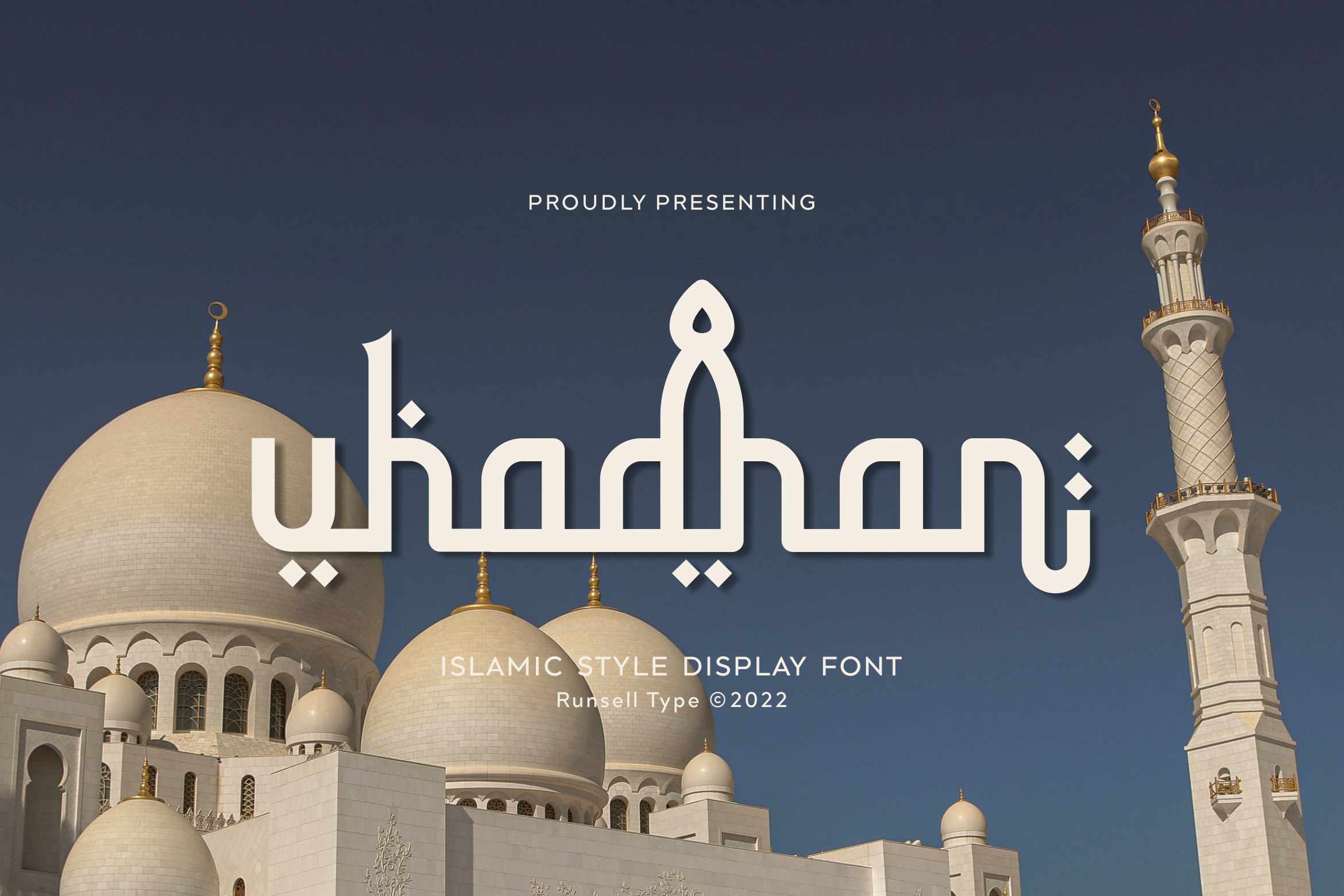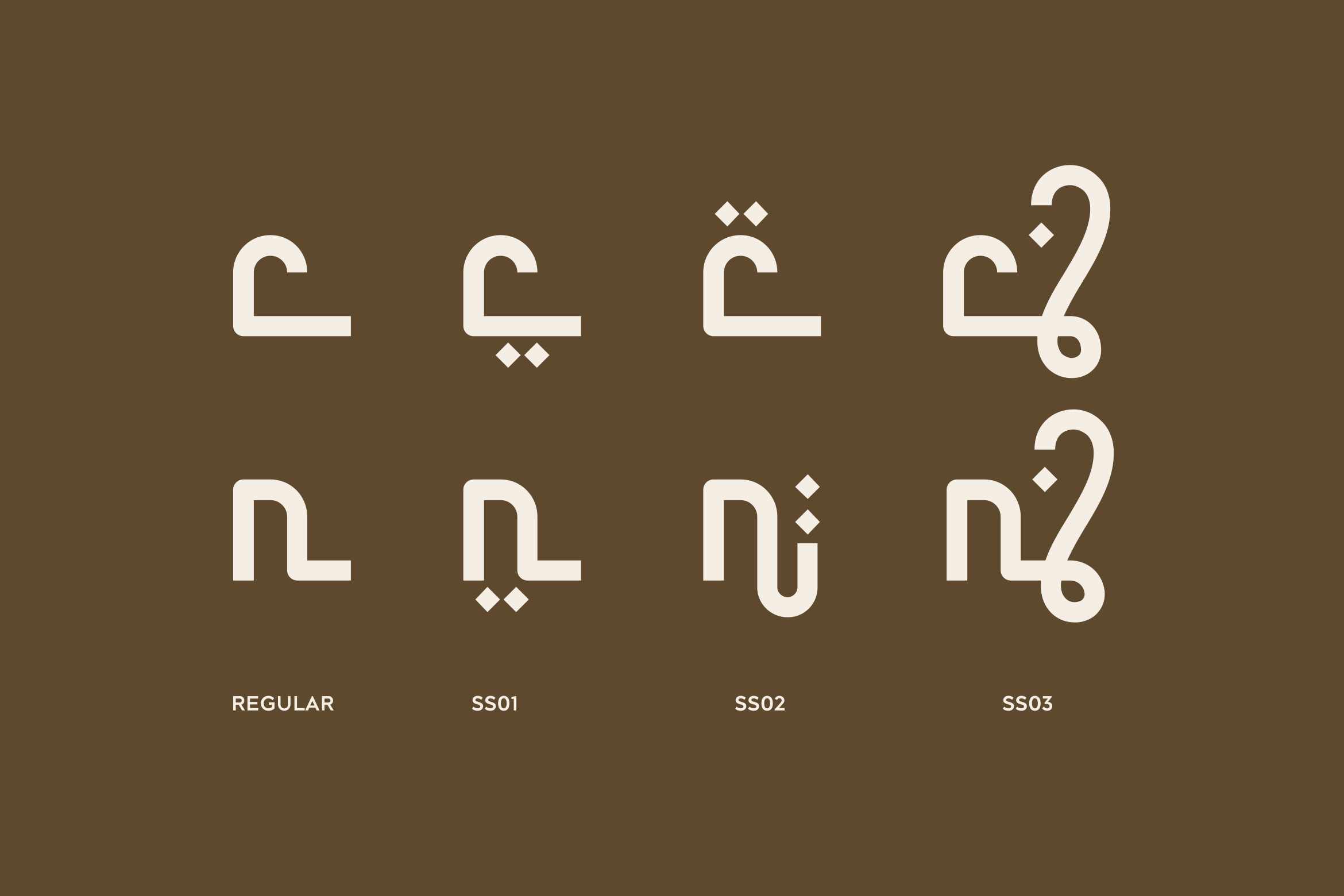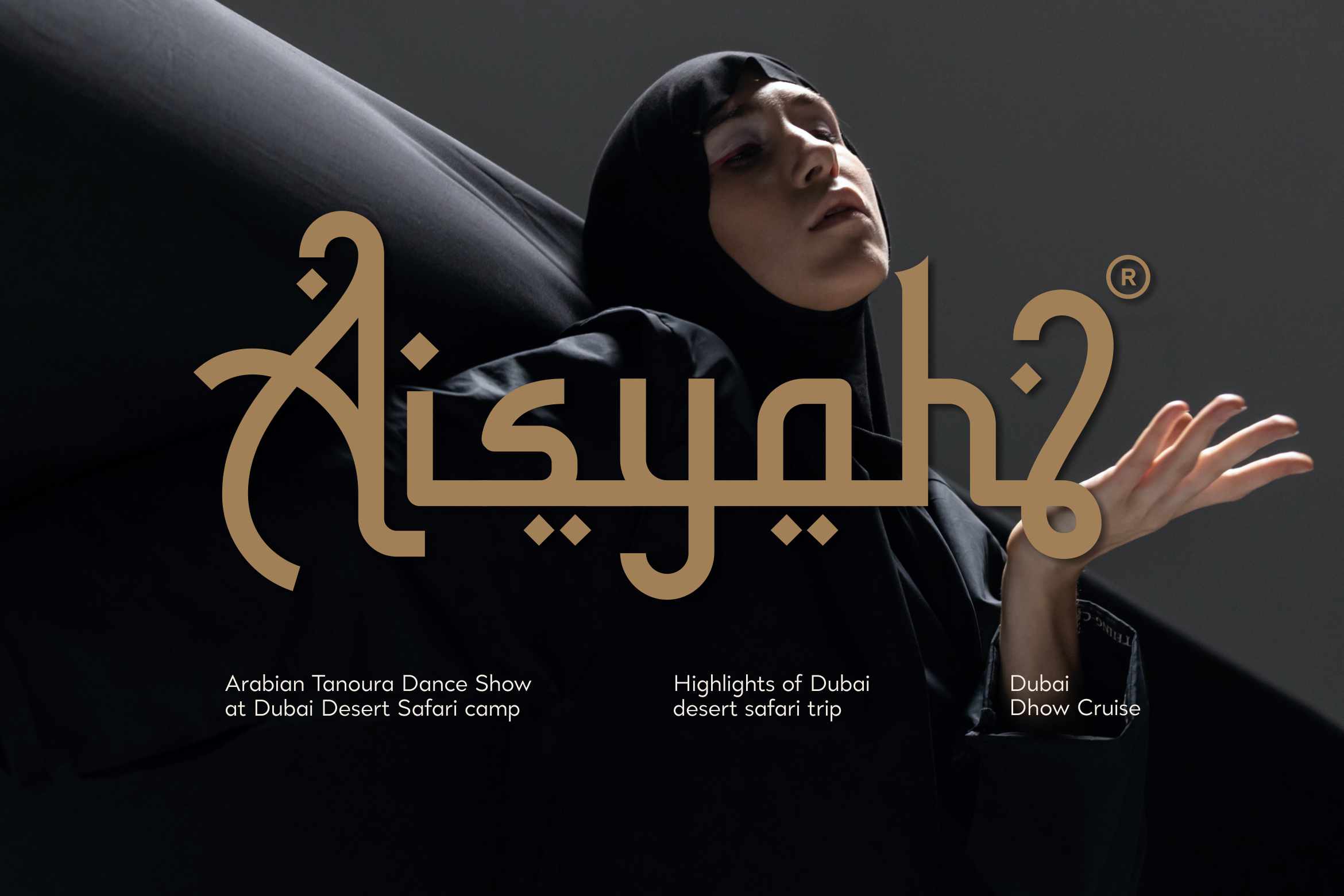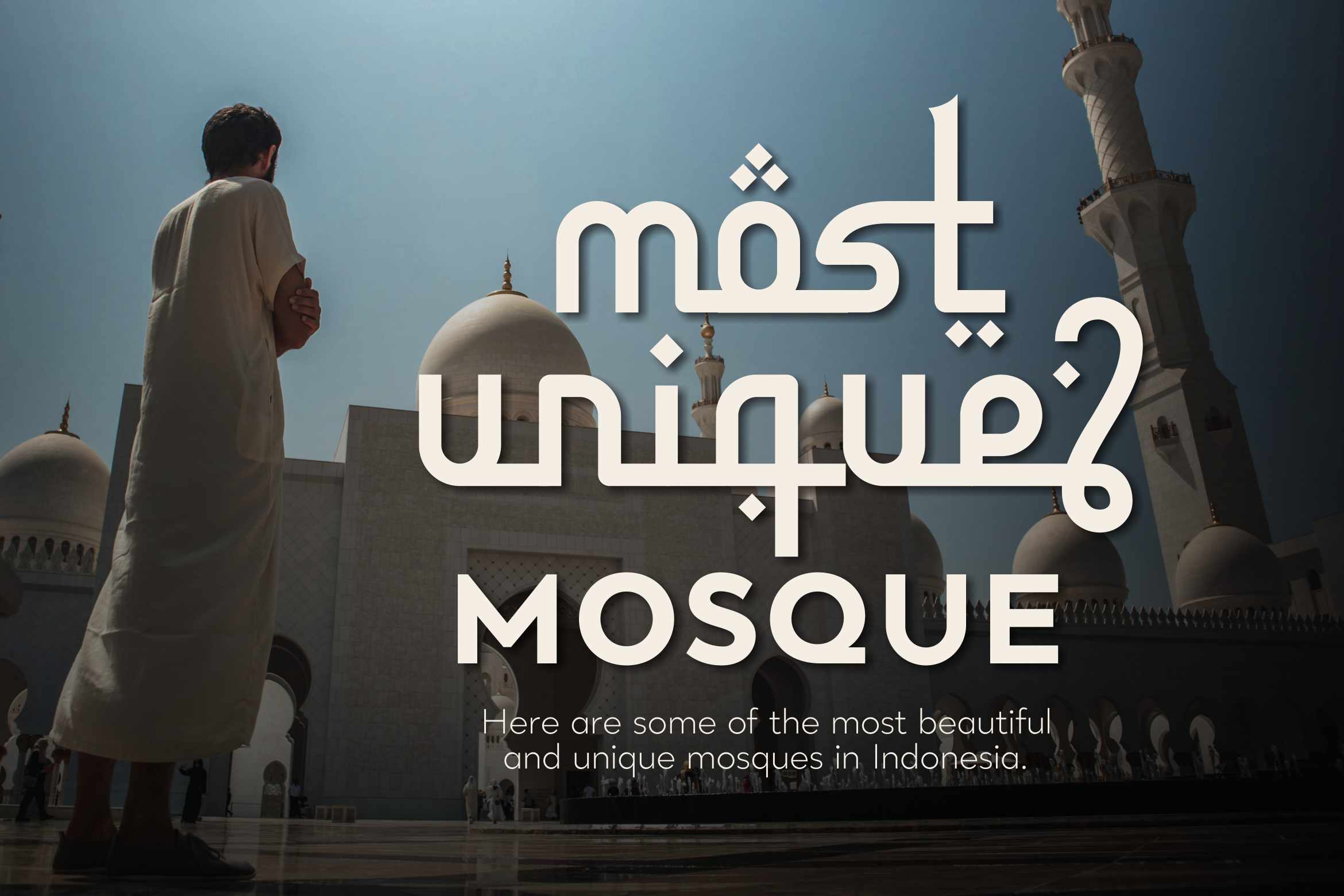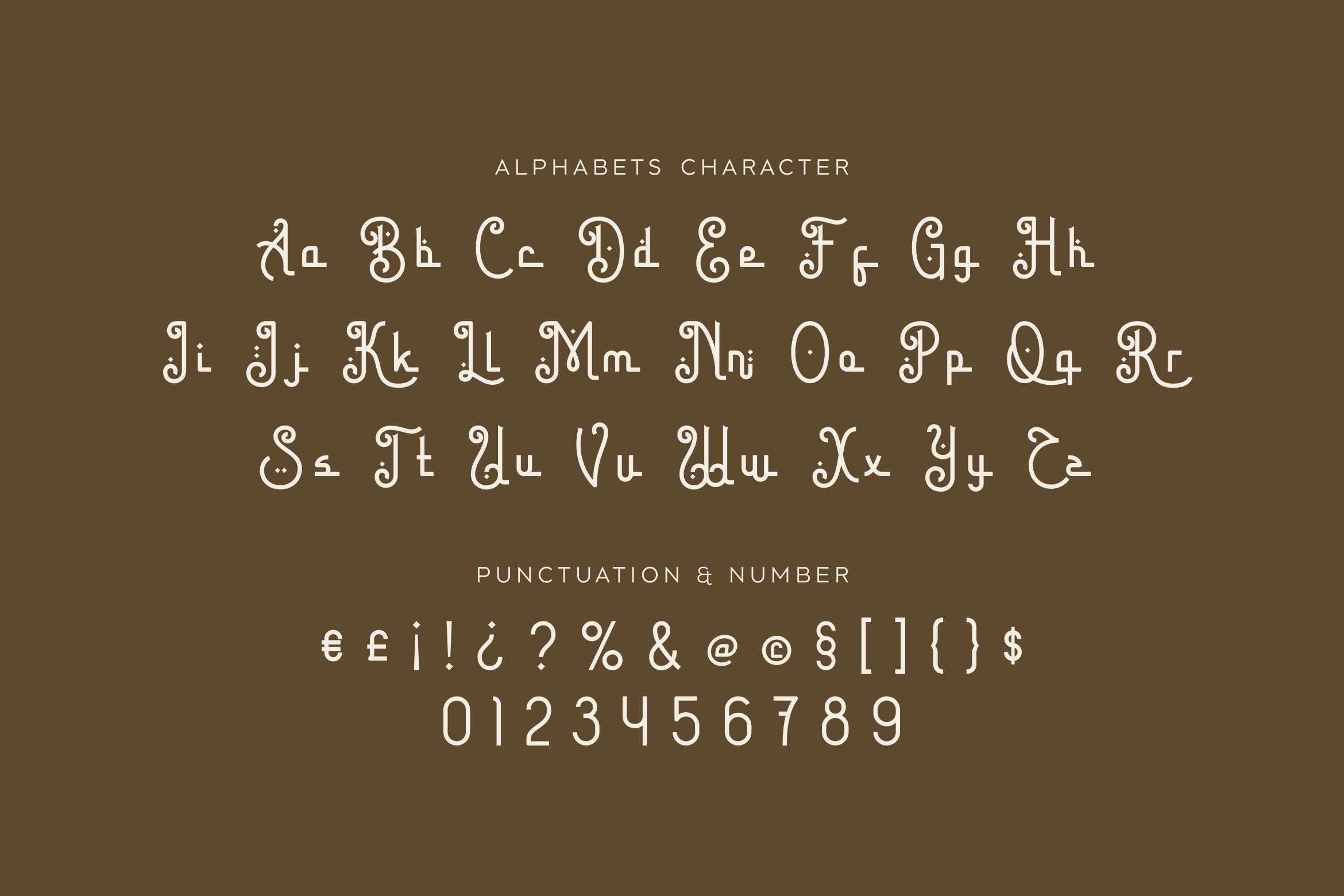
Uhadhan is a bold and culturally rich Islamic-style display font that seamlessly blends Kufic script inspiration with modern typographic clarity. Its unique character construction features geometric consistency, fluid ligatures, and ornamental alternates, making it ideal for projects that honor Islamic heritage while maintaining contemporary appeal.
Perfectly suited for Ramadhan campaigns, Middle Eastern branding, Islamic publications, and mosque identity design, Uhadhan is both distinctive and versatile. With its stylistic sets and cultural relevance, this font brings spiritual elegance to packaging, posters, apparel, and editorial headlines.